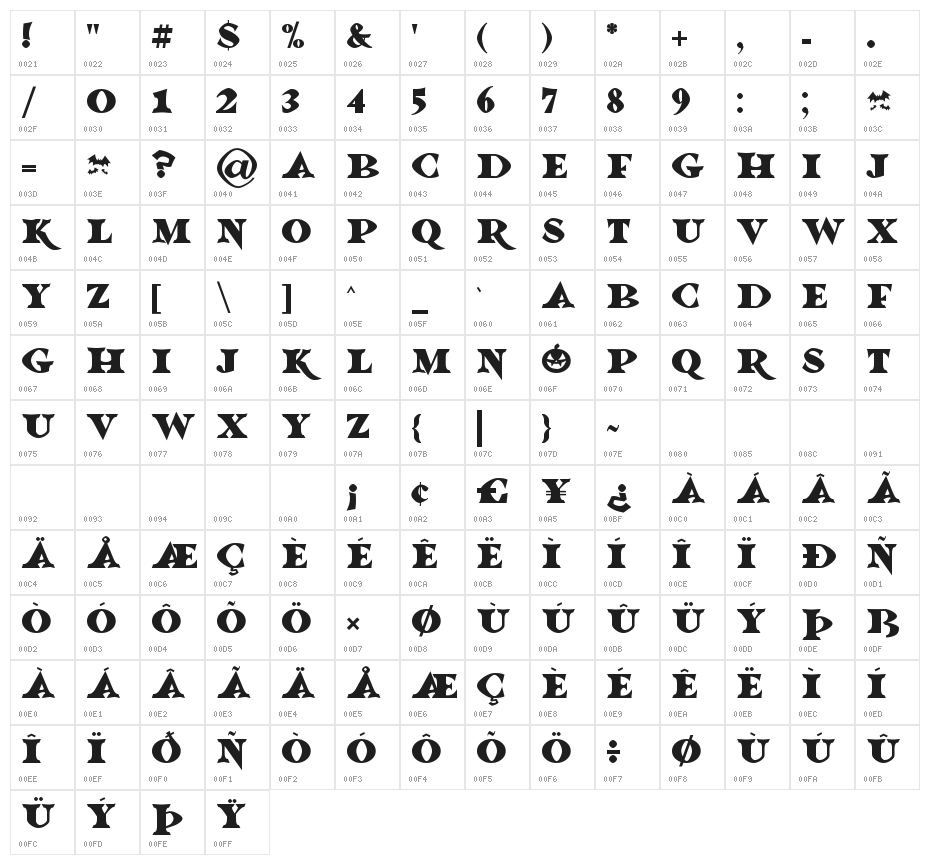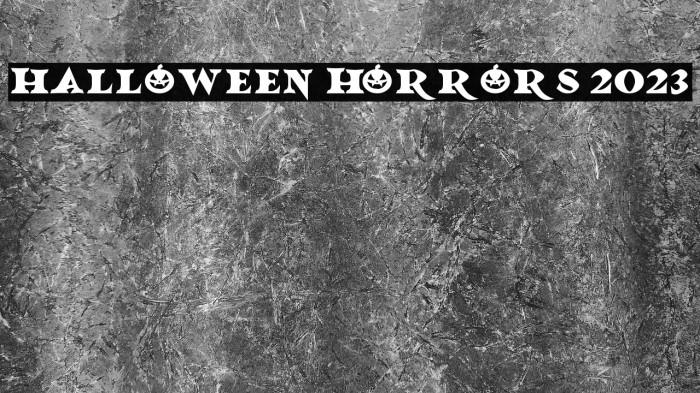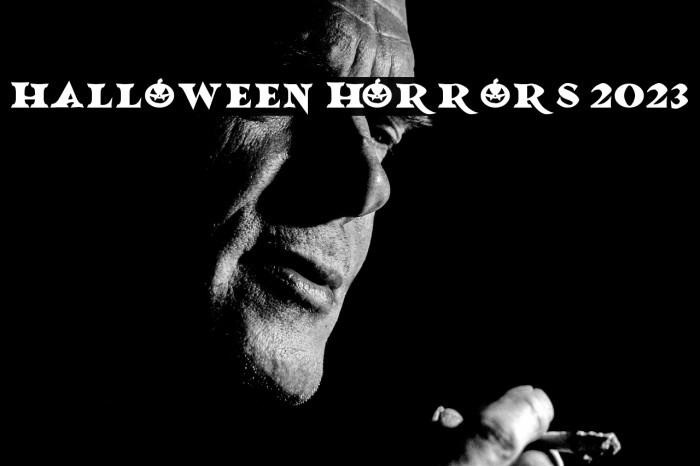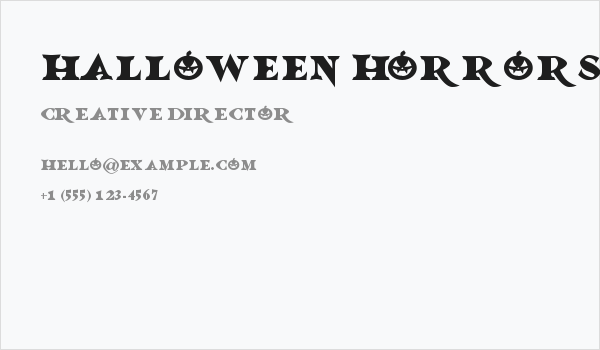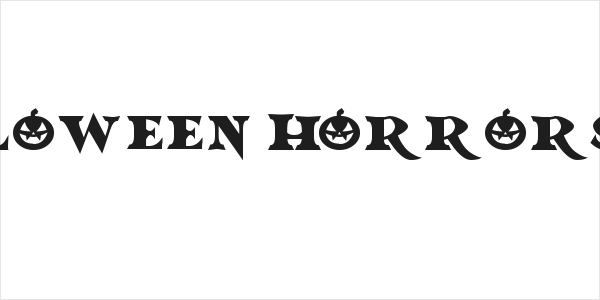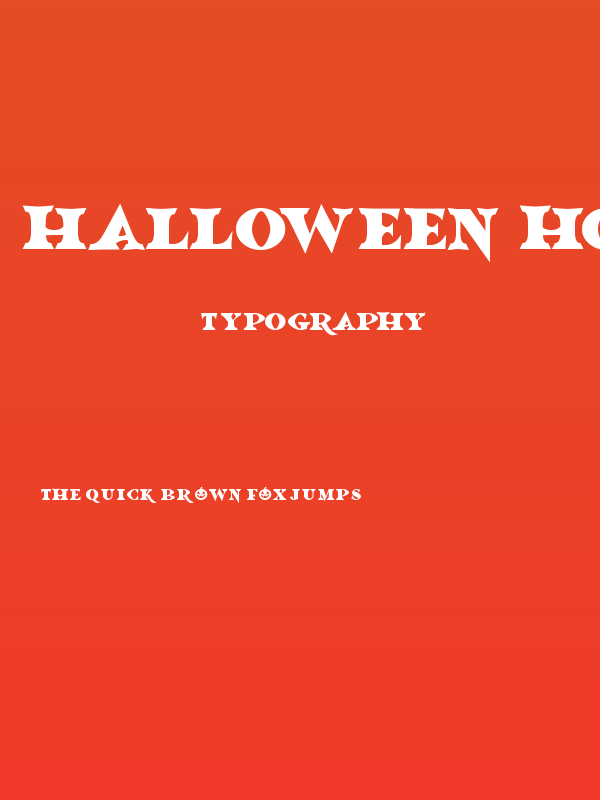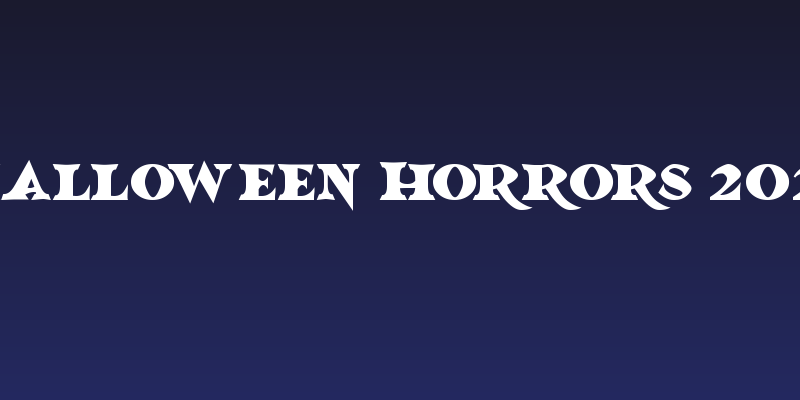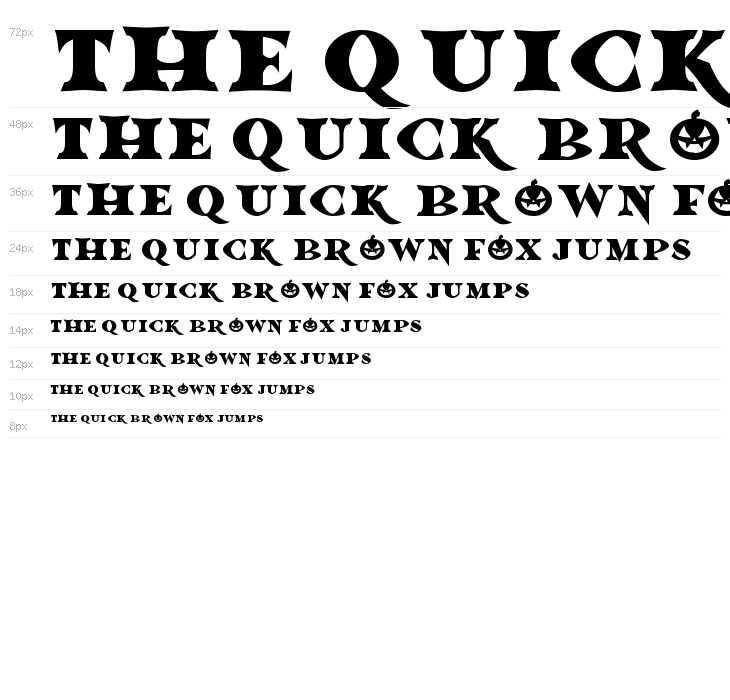
Halloween Horrors 2023 Font
Halloween Horrors 2023 Description
This font embodies a spooky and playful aesthetic, perfect for Halloween-themed designs. The characters are bold and feature unique cutouts and jagged edges that mimic the eerie and mysterious vibe of the season. The uppercase and lowercase letters maintain a consistent style, with some characters incorporating thematic elements like a pumpkin face. The numbers and special characters follow the same design principles, ensuring a cohesive look across all text elements. This font is ideal for capturing attention and adding a festive touch to any project.
| Proposed Projects | Ideal for Halloween party invitations, themed posters, horror movie titles, and festive decorations. |